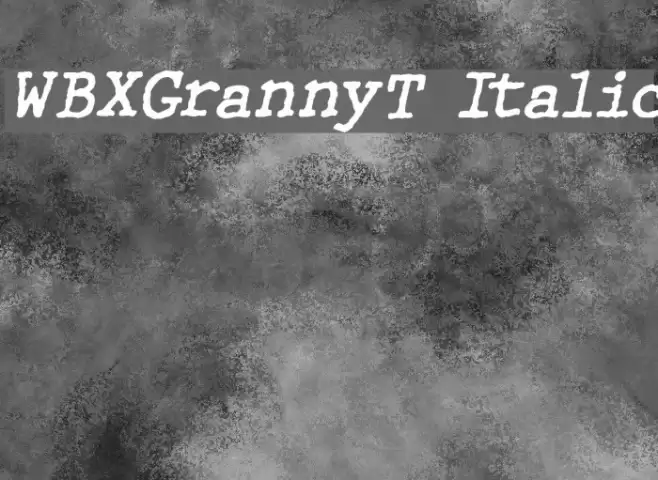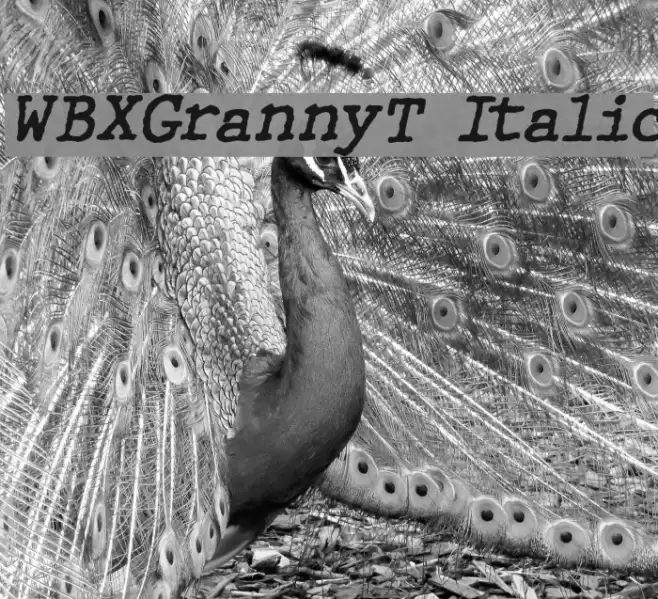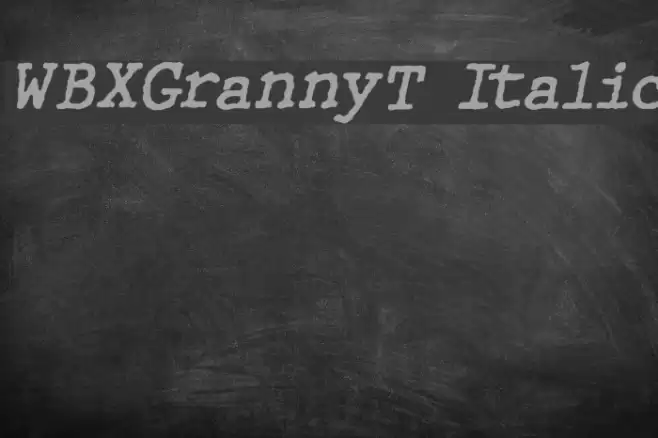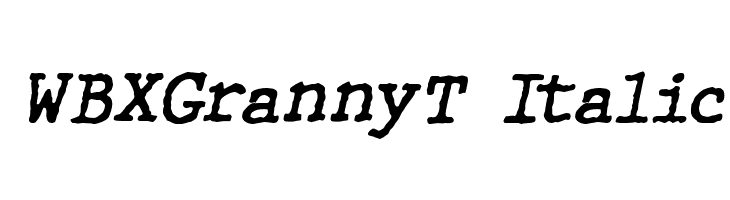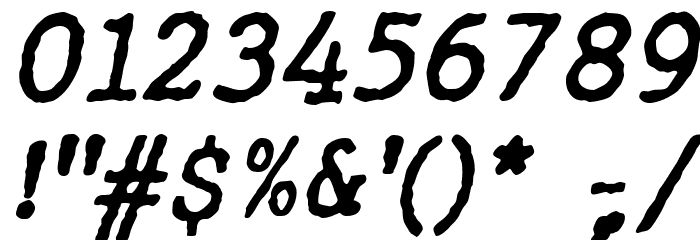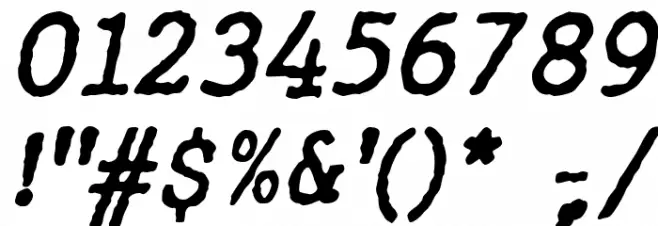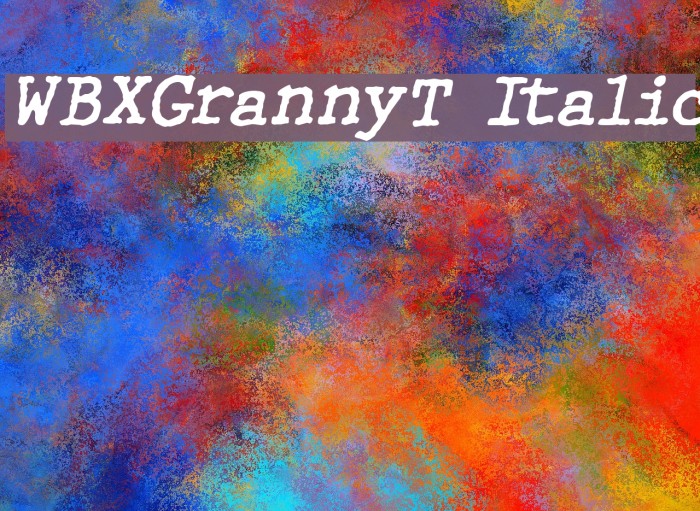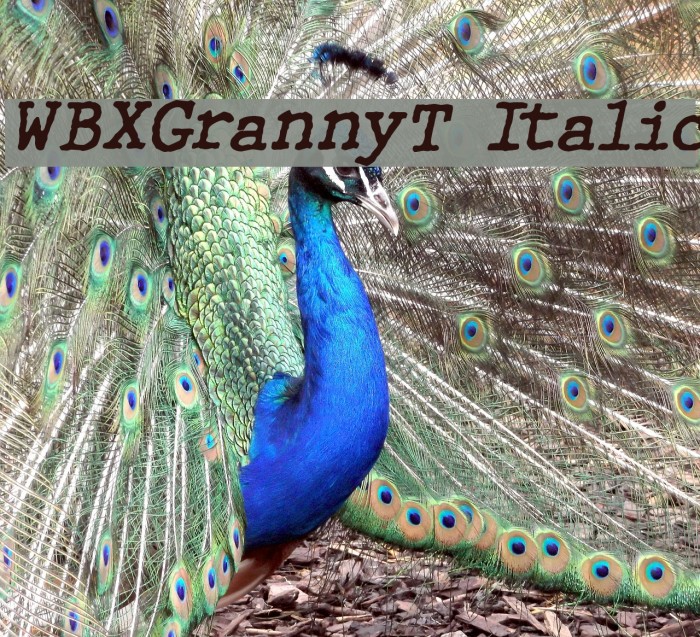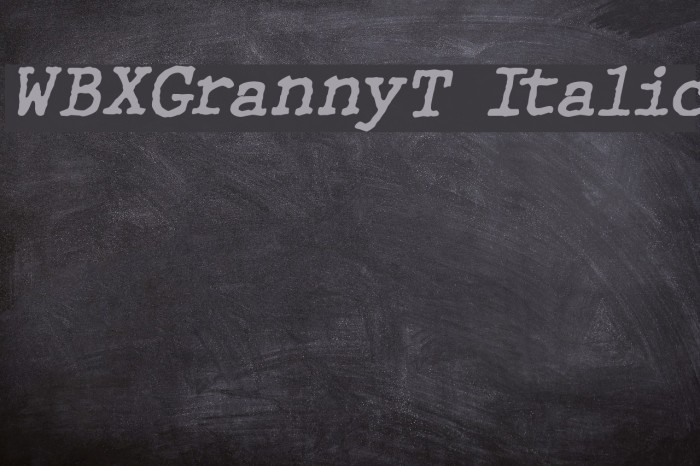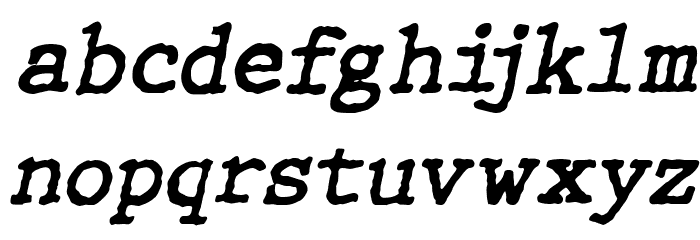
WBXGrannyT Italic Font
WBXGrannyT Italic Description
This font features a bold, italicized style with a hand-drawn appearance, characterized by its rough, textured edges and slightly uneven strokes. The uppercase and lowercase letters maintain a consistent slant, adding a dynamic and energetic feel. The numerals and special characters follow the same stylistic approach, ensuring uniformity across all glyphs. Its distinctive, playful look makes it suitable for creative projects that require a touch of personality and flair.
A bold, italicized font with a hand-drawn, textured style from Uncategorized fonts.
- Proposed Projects: Ideal for posters, artistic designs, branding, and any project needing a unique, handcrafted touch.